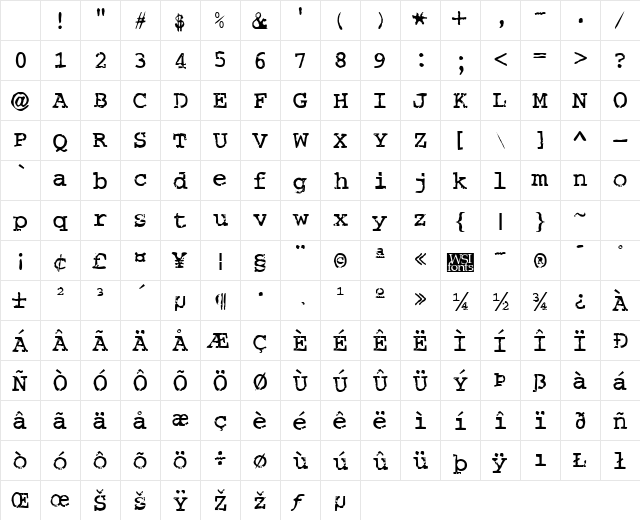
Salvaged Regular
Design Context for Salvaged
Salvaged is a composed and adaptable typeface that performs quietly and consistently across a wide range of design contexts.